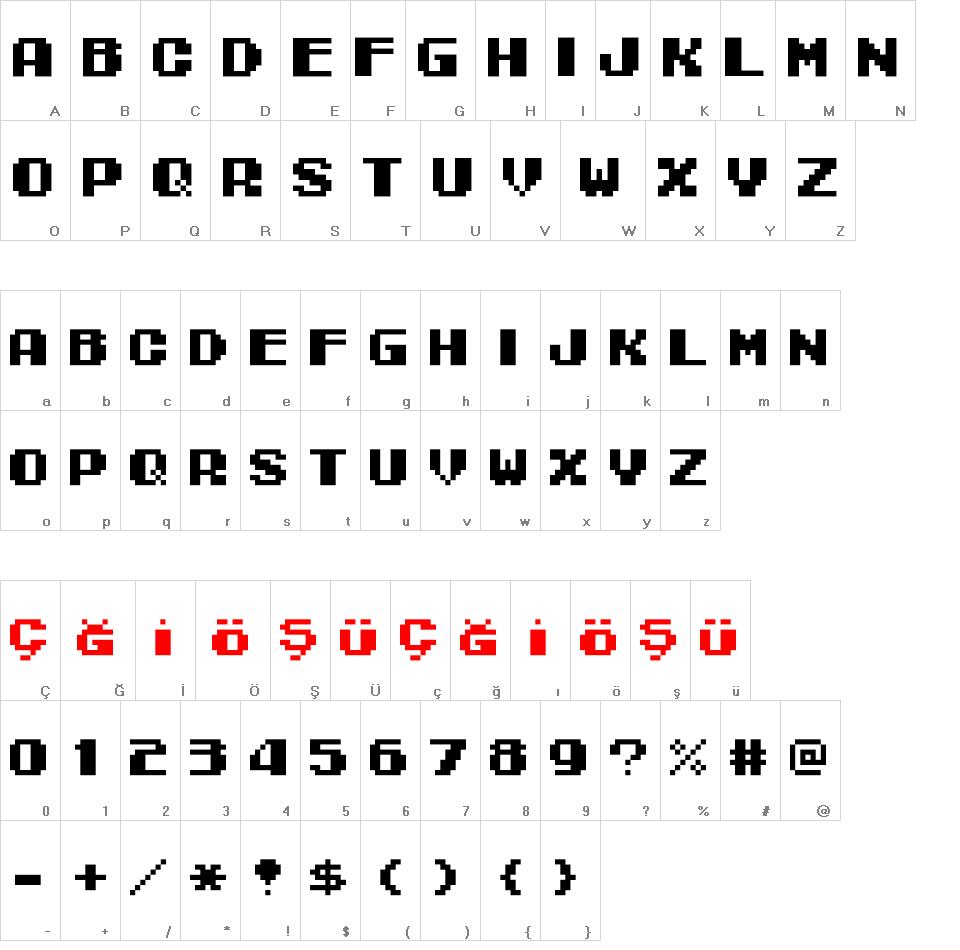
Tecmo Bowl font
TOUCHDOWN!!! A font based on Tecmo Bowl is finally here, complete with unicodes, Latin characters, Greek characters, AND CYRILLIC CHARACTERS TOO!!! Who can resist this offer!?